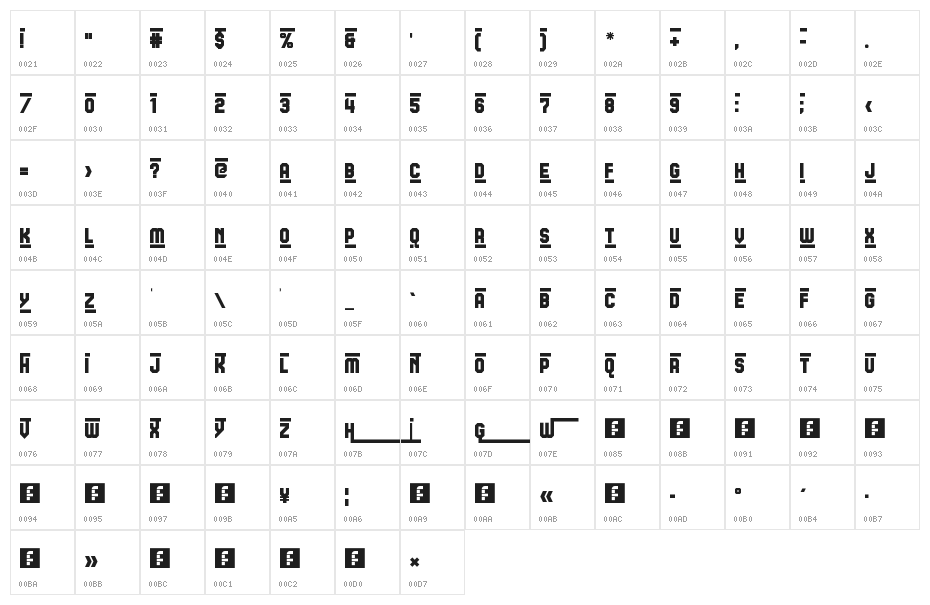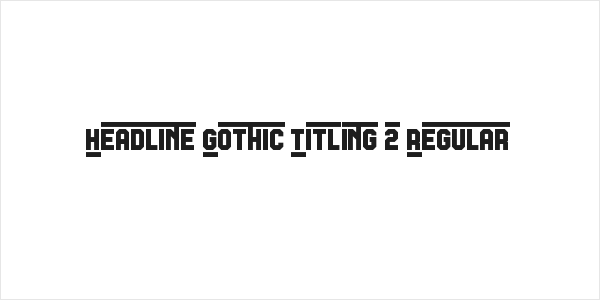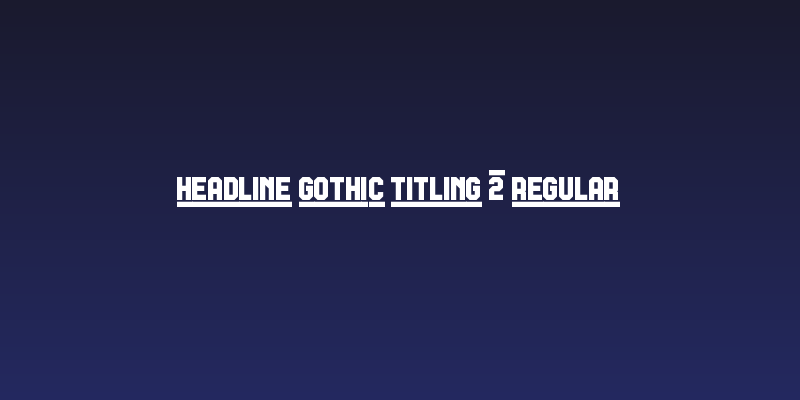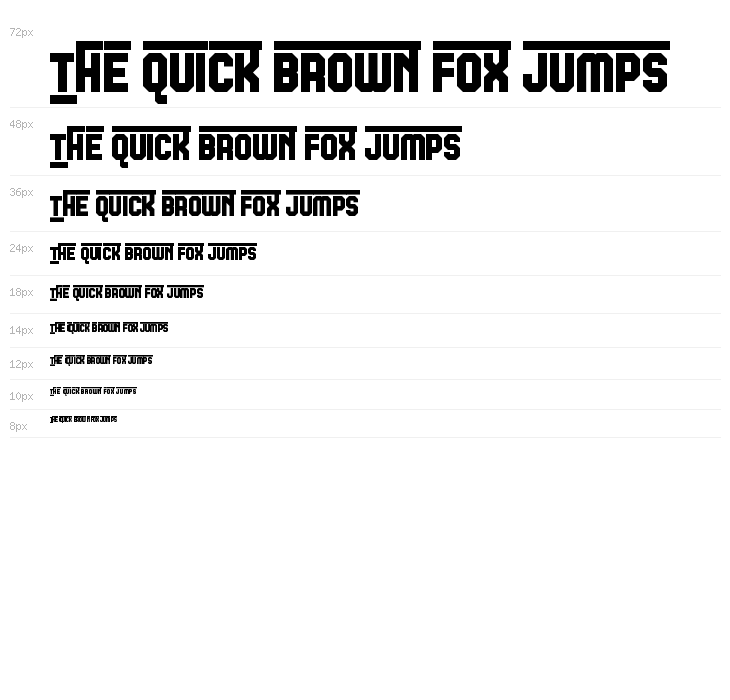
Headline Gothic Titling 2 Regular Font
Headline Gothic Titling 2 Regular Description
This font features a bold, geometric style with a strong presence. The characters are constructed with thick, uniform strokes that create a sense of solidity and impact. The uppercase letters have a blocky appearance, while the lowercase letters maintain a similar weight and structure, ensuring consistency across the typeface. The numbers and special characters are designed to match the boldness of the alphabet, making them suitable for attention-grabbing headlines and titles. The overall design is modern and assertive, ideal for projects that require a commanding visual element.
| Proposed Projects | Ideal for posters, banners, branding, and any design requiring strong visual impact. |